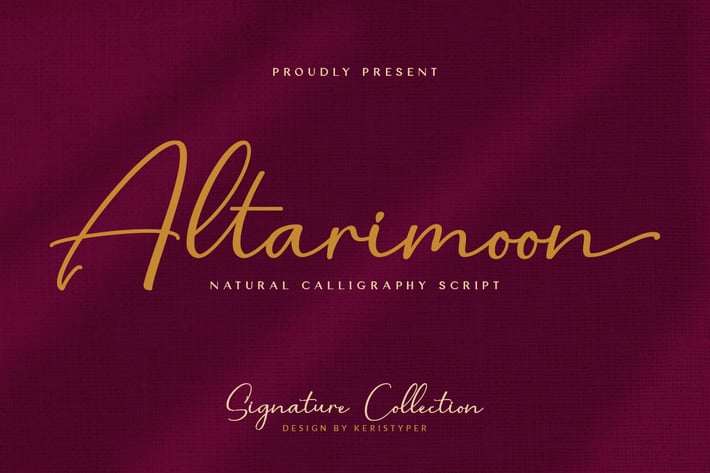
Altarimoon Natural Calligraphy Script Font
Introducing Altarimoon, a free-flowing, modern hand-drawn script. With a spontaneous feel and lots of alternates, it's a perfect typeface for your branding projects or anywhere you need a fresh hand-drawn look.
Altarimoon Font multilingual support:
Afrikaans, Albanian, Catalan, Danish, Dutch, English, Estonian, French, Finnish, German, Icelandic, Indonesian, Italian, Malay, Norwegian, Portuguese, Spanish, Swedish, Zulu, and many more.